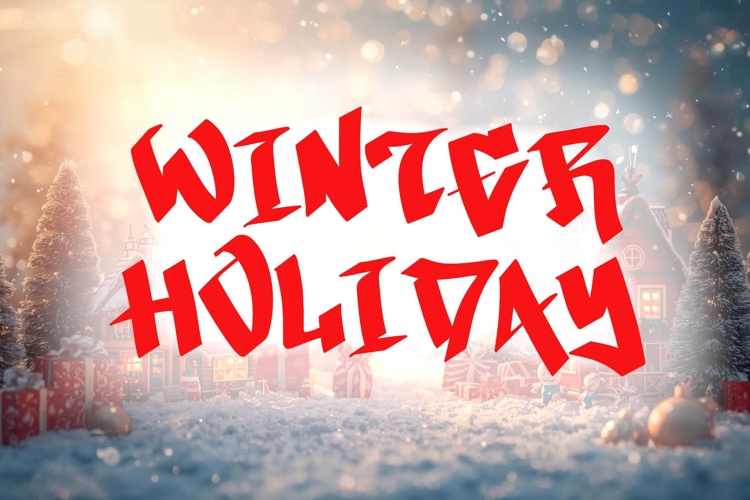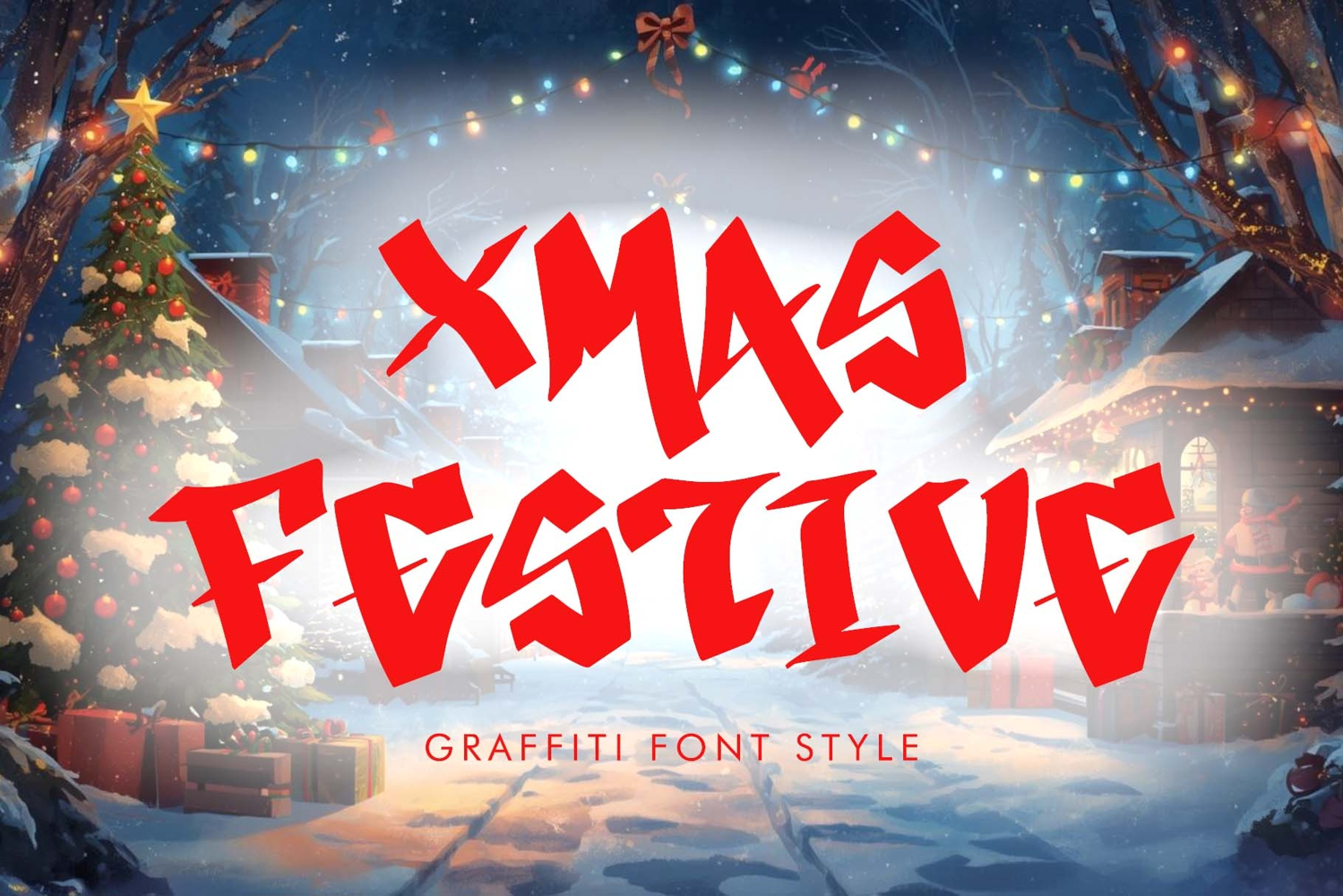
"Xmas Festive" is a unique and elegant graffiti font. It features uppercase and lowercase letters, numerals, punctuation, and multilingual support. It's perfect for banners, posters, prints, logos, stickers, Christmas, winter, Halloween, fall, autumn, vacation, holiday, Teacher's Day, tattoos, stickers, spring, Valentine's Day, and more.